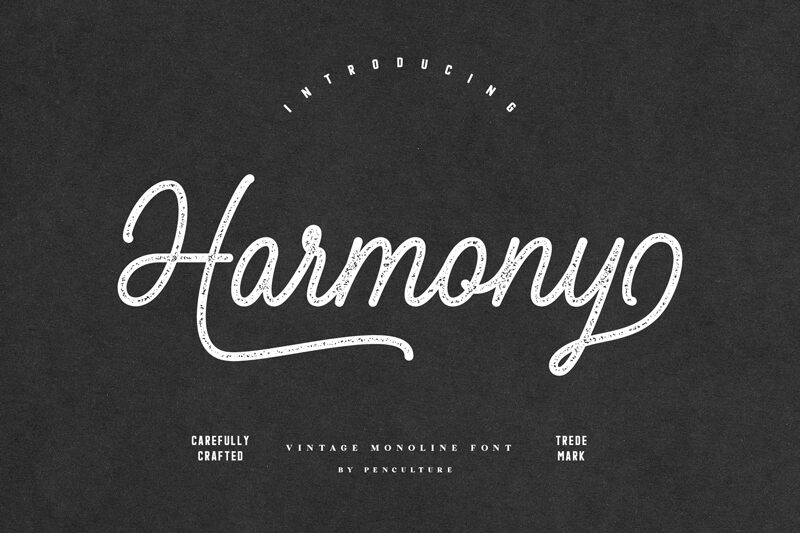
Harmony, the captivating creation by Pen Culture, is a mesmerizing handwritten font that exudes a vintage monoline charm. With its semi-light weight, this font gracefully renders an elegant touch to any project it embellishes. Perfectly suited for logo designs and branding endeavors, Harmony lends itself effortlessly to invitations and stationery creations, evoking a sense of nostalgic sophistication. Its timeless appeal is equally fitting for vintage-themed websites and social media graphics, transporting viewers to an era of refined aesthetic. Embrace the allure of Harmony and infuse your projects with an enchanting handwritten allure.
Designed by Revo Farisky from Pen Culture in 2022